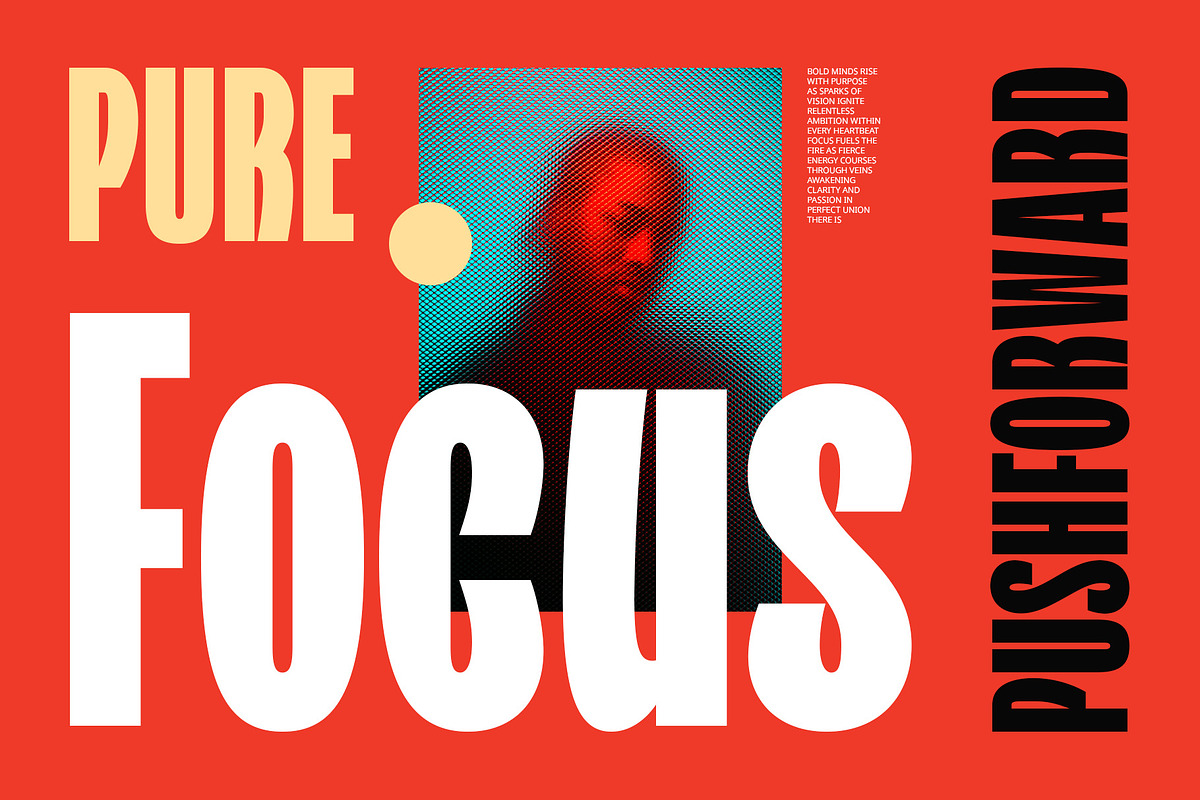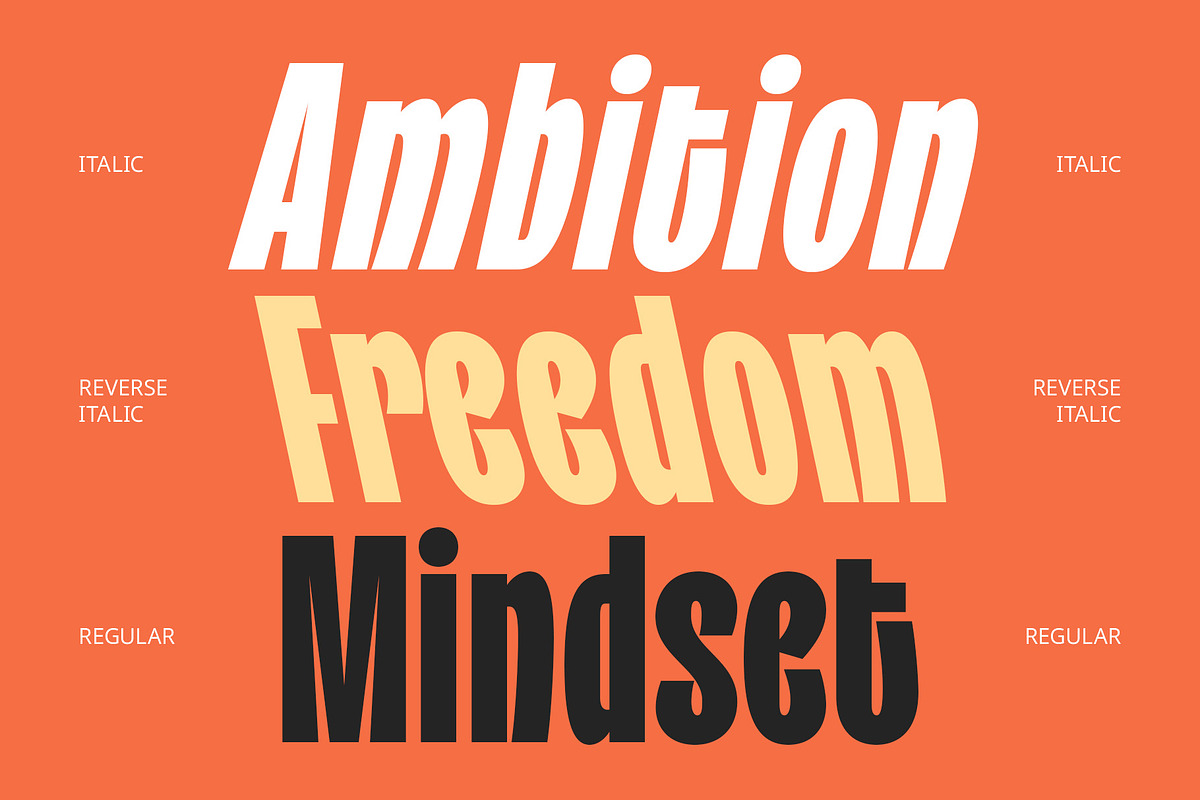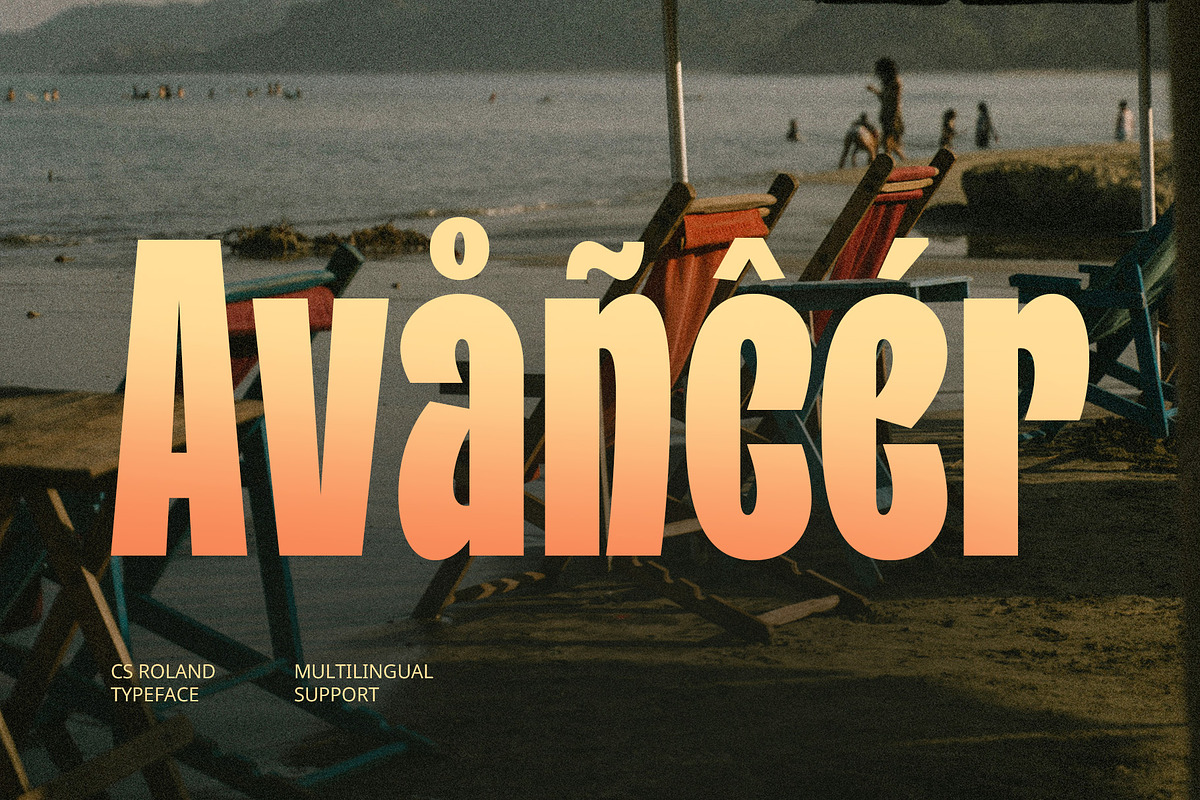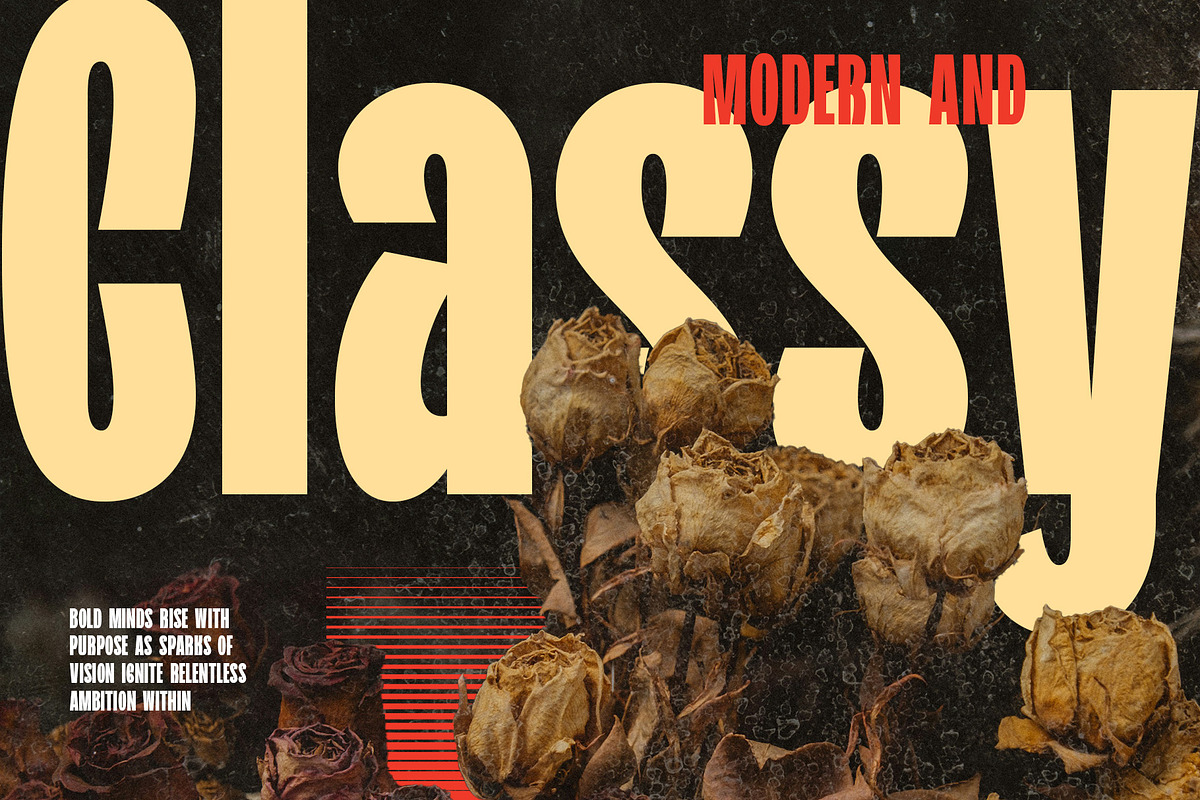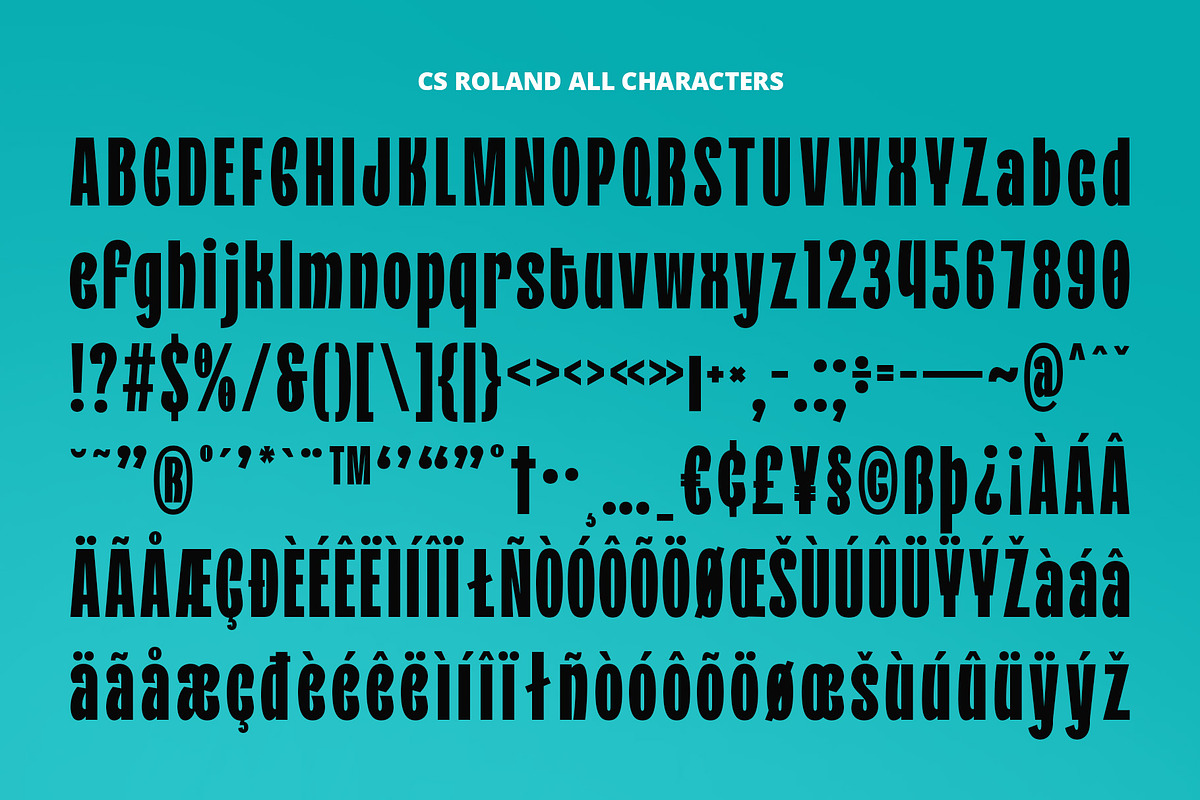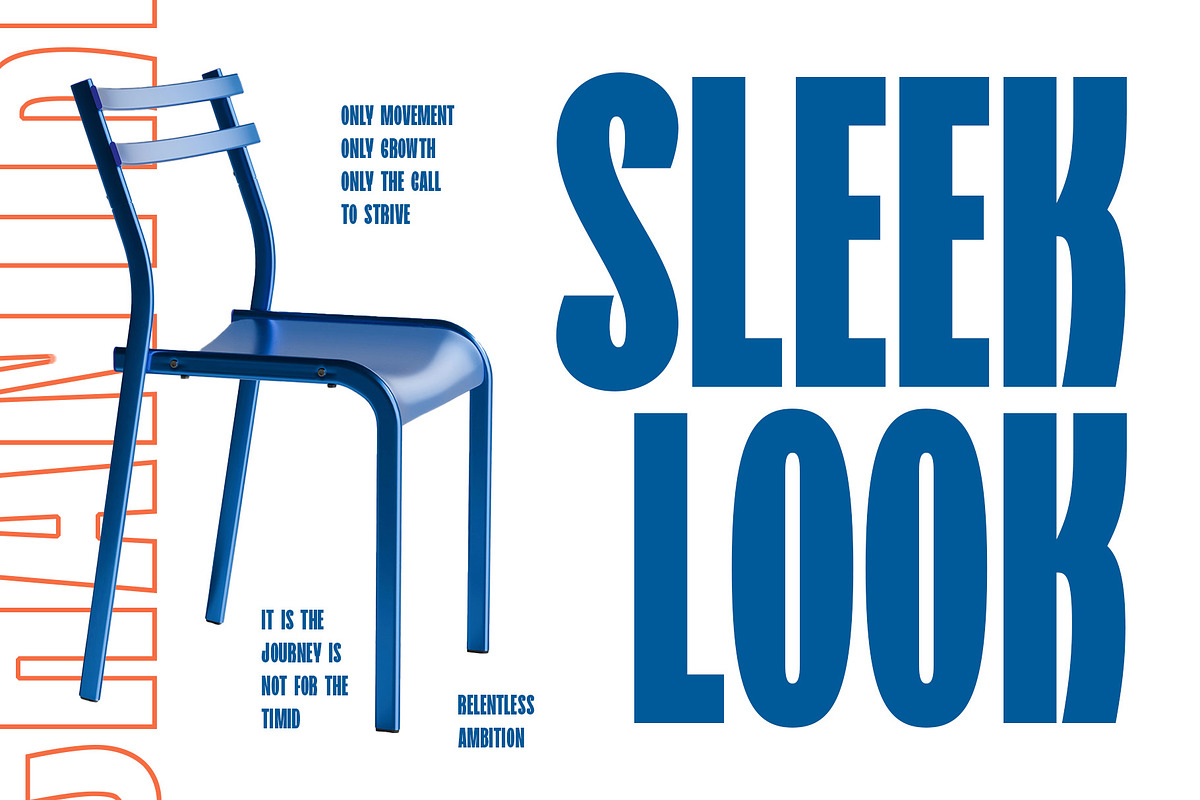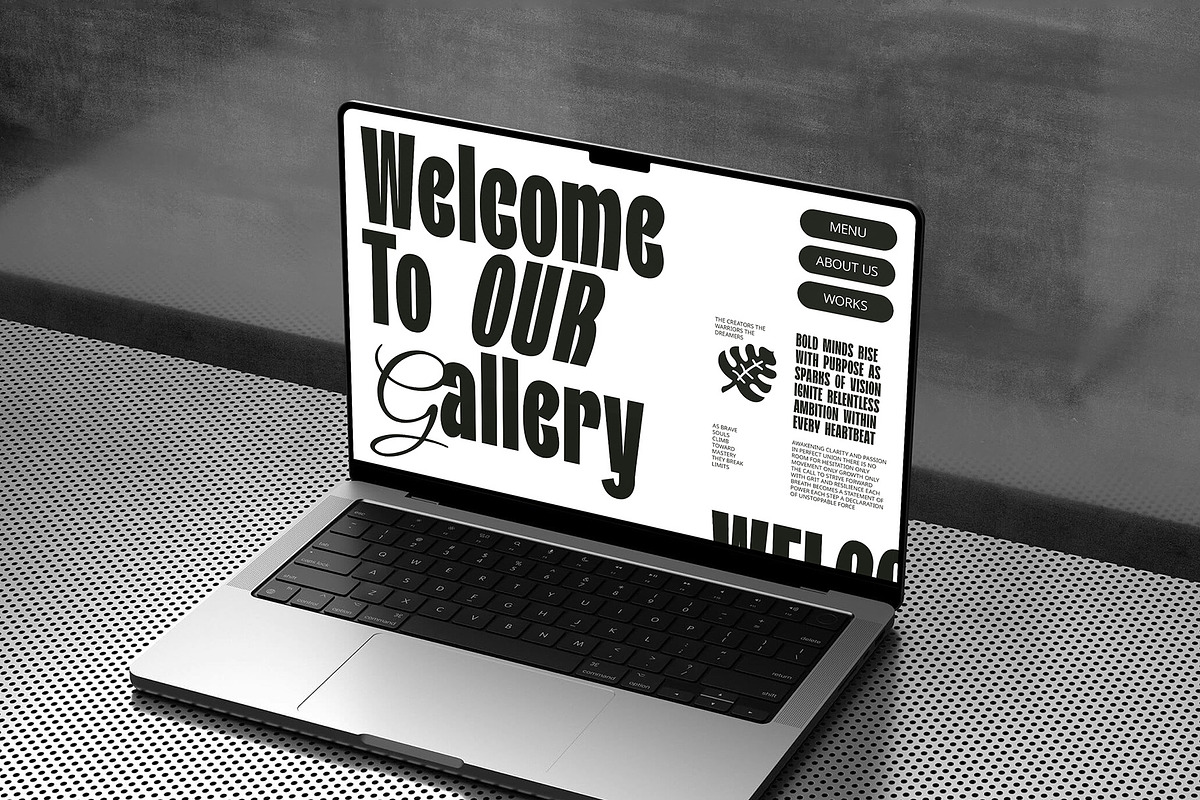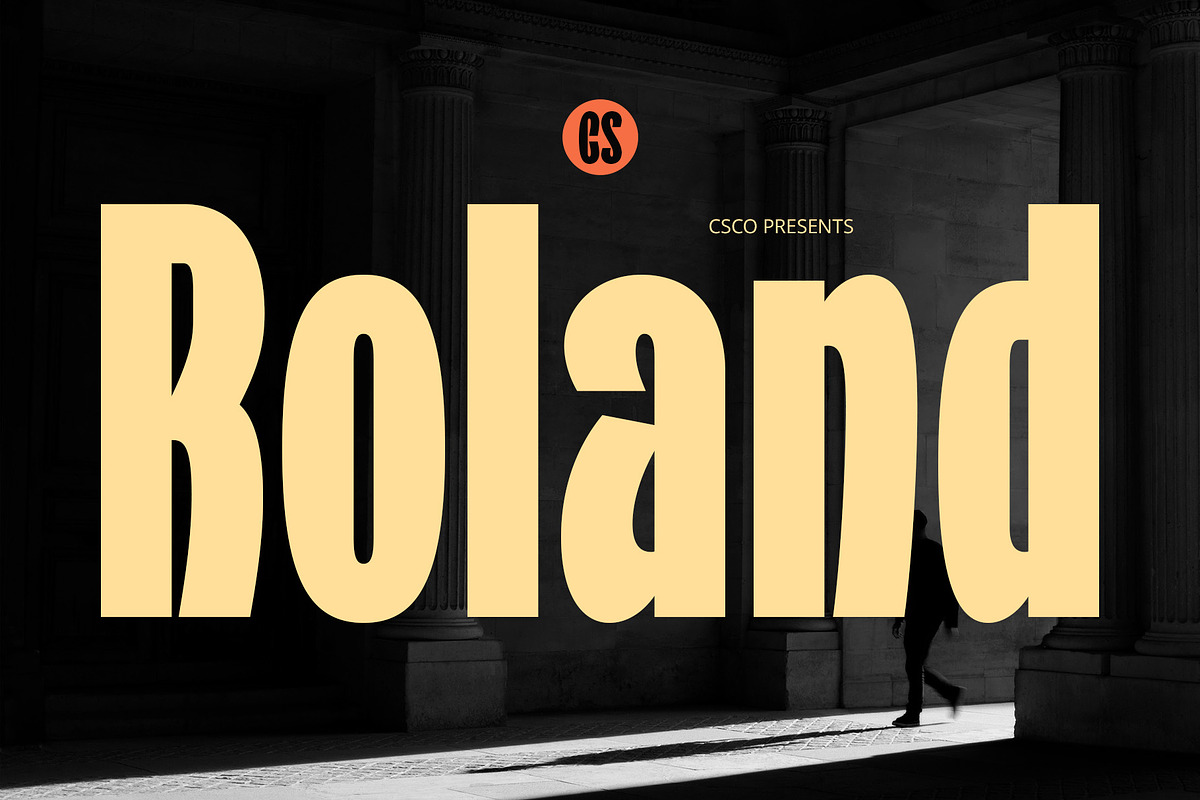
CS Roland – Bold Font
CS Roland – Bold Sans Serif Font
Strong, Minimalist, and Confident CS Roland is a modern sans-serif font with a bold and clean contemporary form, designed to deliver clarity, structure, and visual strength. With its well-defined shapes and minimalist aesthetic, this typeface radiates professionalism and confidence—making it highly adaptable for a wide range of modern design contexts.
Versatile and Visually Striking The font’s solid structure and even weight ensure excellent readability across both print and digital formats. Whether you’re designing for branding, posters, editorial layouts, packaging, or user interfaces, CS Roland provides a refined yet impactful presence that commands attention without overwhelming the composition.
Built for Precision and Impact CS Roland balances functional simplicity with bold personality, offering a style that’s equally suited for corporate identities and creative expressions. Its sleek and assertive design makes it a go-to choice for designers who value precision, clarity, and modern appeal in their typography.
A Bold Typeface for Modern Design Needs Whether you’re crafting a powerful headline or establishing a brand’s visual voice, CS Roland delivers the versatility and strong character needed to create standout designs. It’s a timeless tool for those seeking a bold sans serif font with a clean, sharp, and commanding aesthetic.